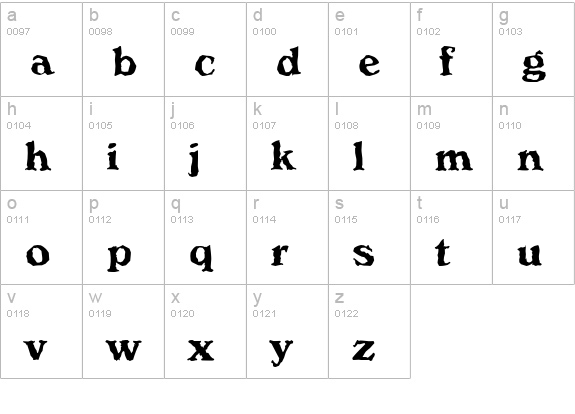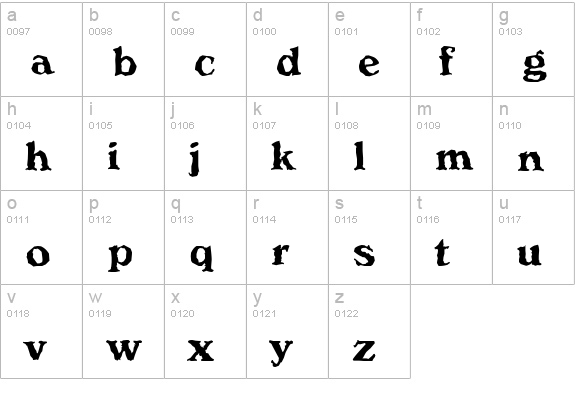
VeronaRandom-Bold Font Details
VeronaRandom-Bold is a strong, high-contrast variant in the VeronaRandom typeface family \xE2\x80\x94 well suited to headlines, attention-grabbing titles, and strong calls-to-action.
VeronaRandom-Bold is a bold and eye-catching typeface that exudes strength and confidence. With its unique randomized letterforms, this font adds a touch of unpredictability and creativity to any design project. The thick, bold strokes make a powerful statement, while the playful variations in each character bring a sense of dynamism and energy. This versatile font is perfect for headlines, posters, logos, and any design that needs to make a bold impact. Whether you're looking to grab attention or add a touch of personality to your project, VeronaRandom-Bold is sure to deliver. Best of all, VeronaRandom-Bold is available for free download at FontsMarket.com. So go ahead and unleash your creativity with this striking and expressive typeface today!